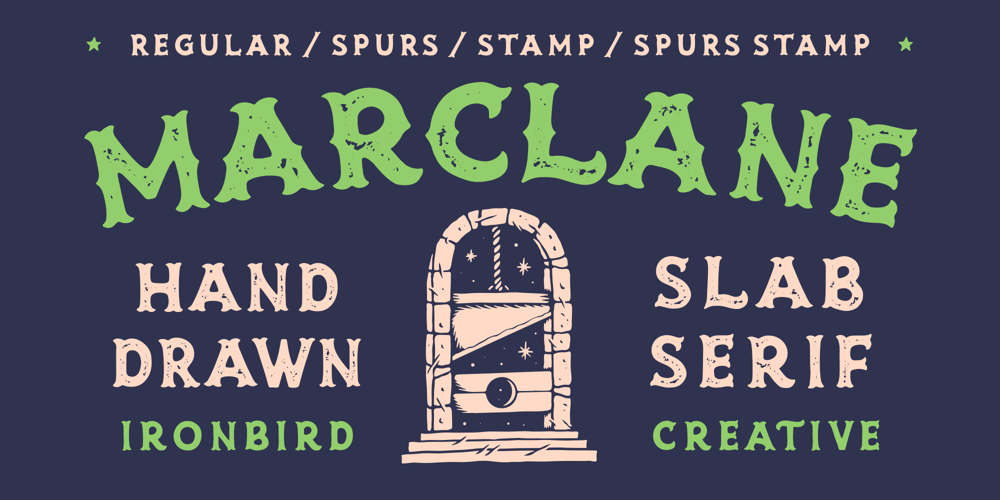
Marclane Font Family was designed by Septianto Nugroho and published by Ironbird Creative. Marclane contains 5 styles and family package options. Marclane is a hand drawn slab serif typeface. This item consist of 4 fonts in various styles which you can play around with it and also come with MARCLANE DINGBAT to make better design. This typefaces is perfect for people looking for vintage aesthetic and organic feel or design needs with a touch of classic western.What Will You Get : Marclane Slab Serif Marclane Dingbat If you have any questions, please contact (ironbirdcreative@gmail.com)